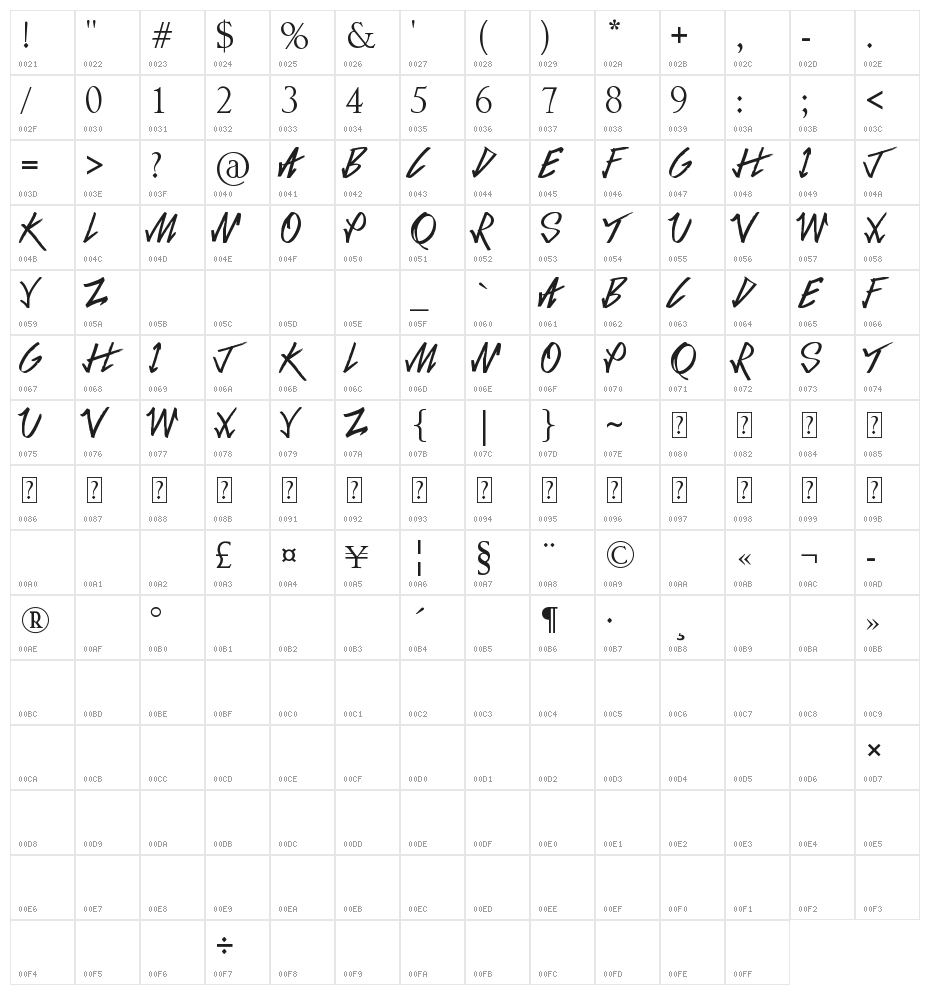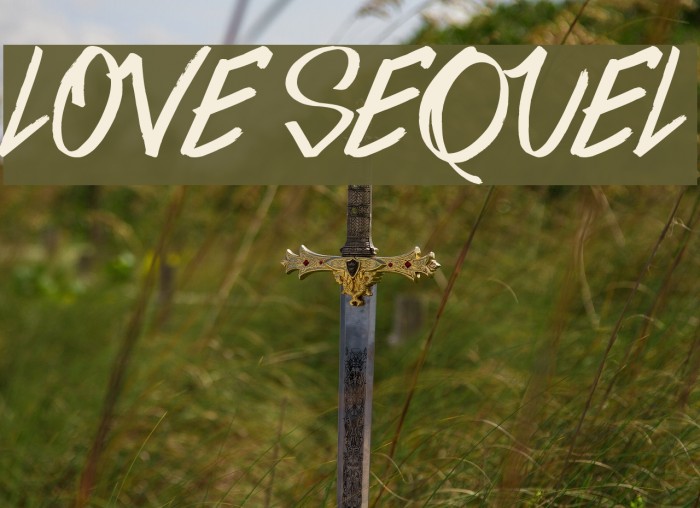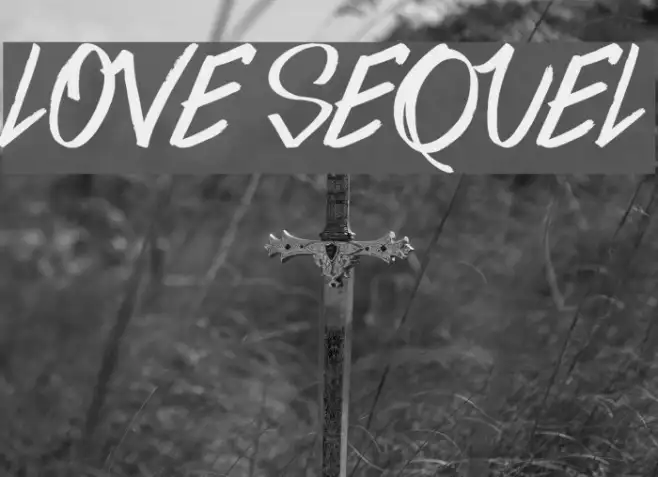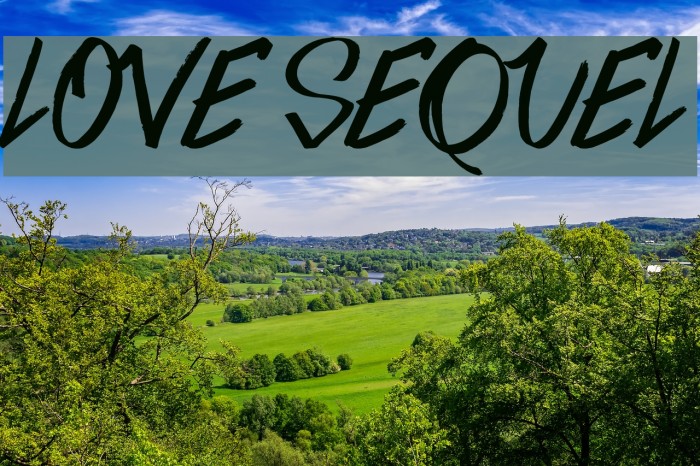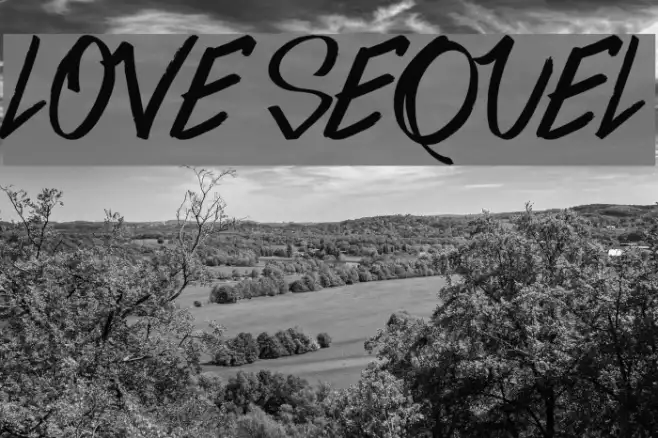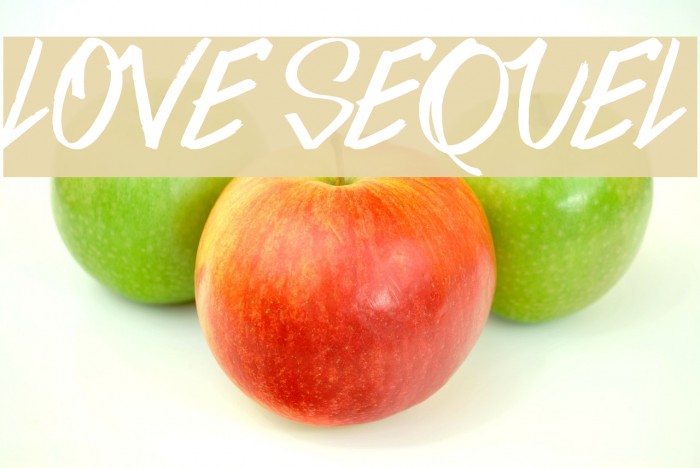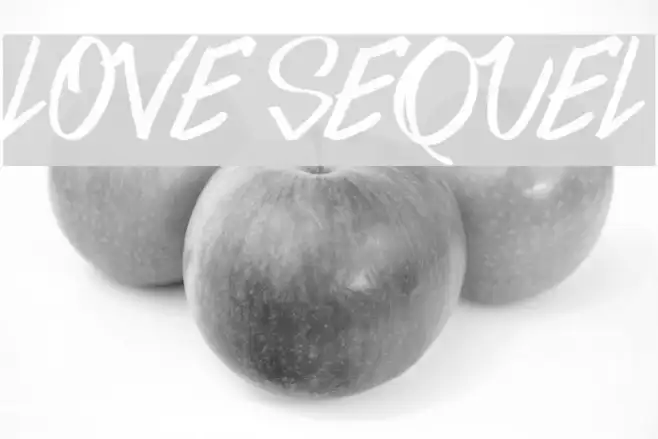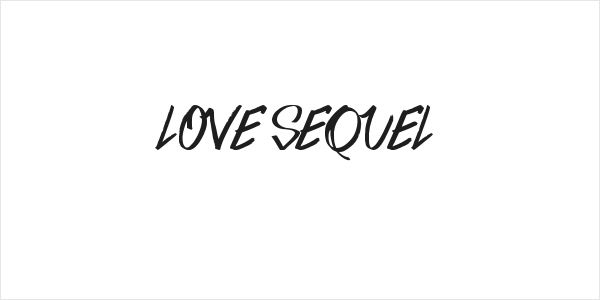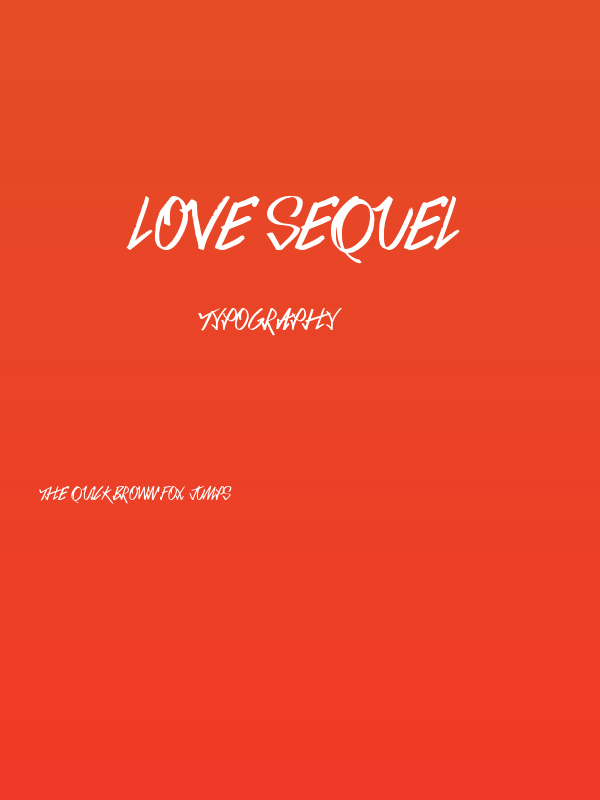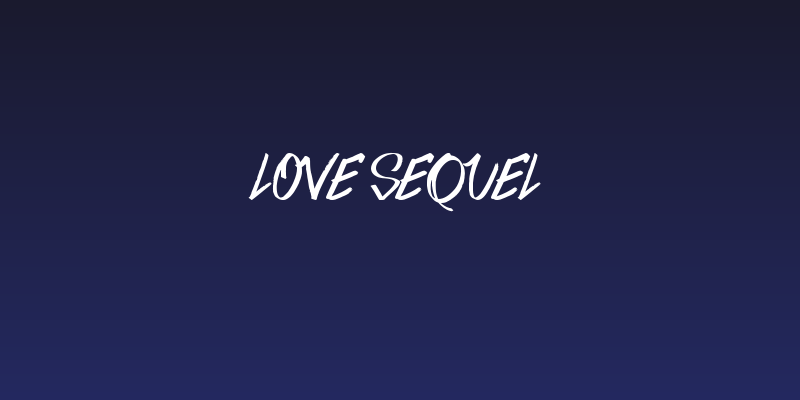
Love Sequel Font
Love Sequel Description
This font features a dynamic and energetic script style, characterized by its bold, sweeping strokes and a sense of movement. The uppercase letters are particularly striking, with exaggerated curves and a slightly slanted orientation that gives a sense of urgency and flair. The lowercase letters maintain this lively aesthetic, with a consistent flow that mimics natural handwriting. Numbers and special characters are designed to complement the letters, maintaining the same bold and expressive quality. The overall impression is one of creativity and spontaneity, making it ideal for projects that require a personal and artistic touch.